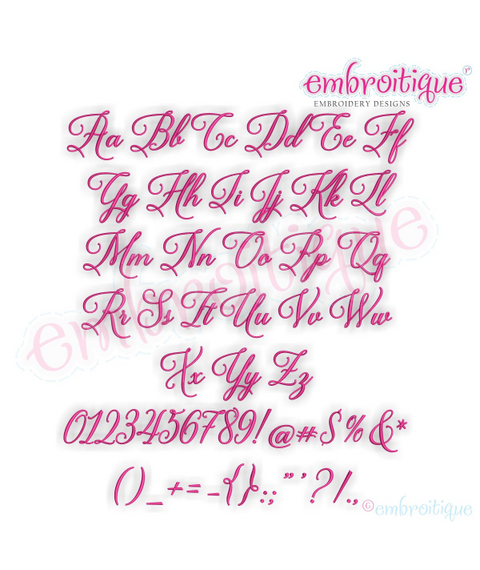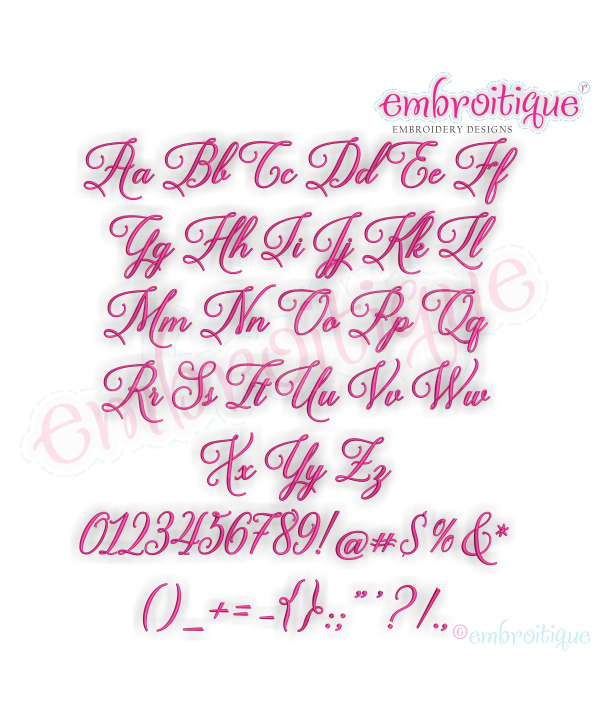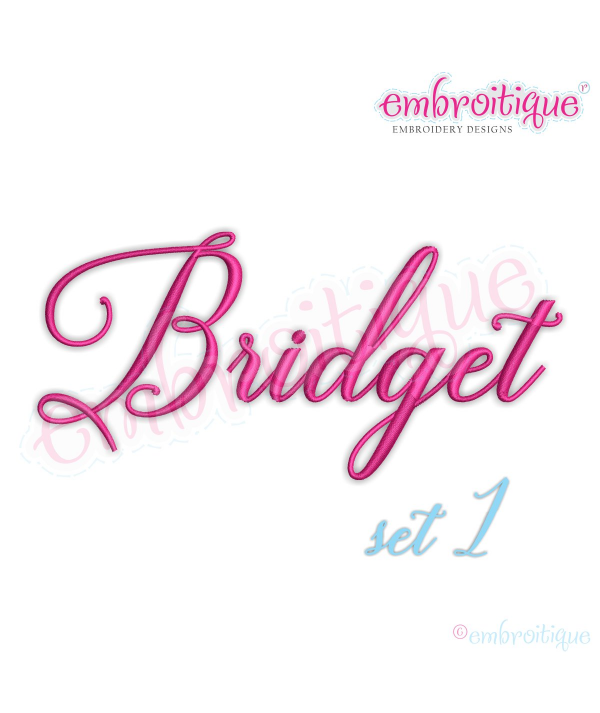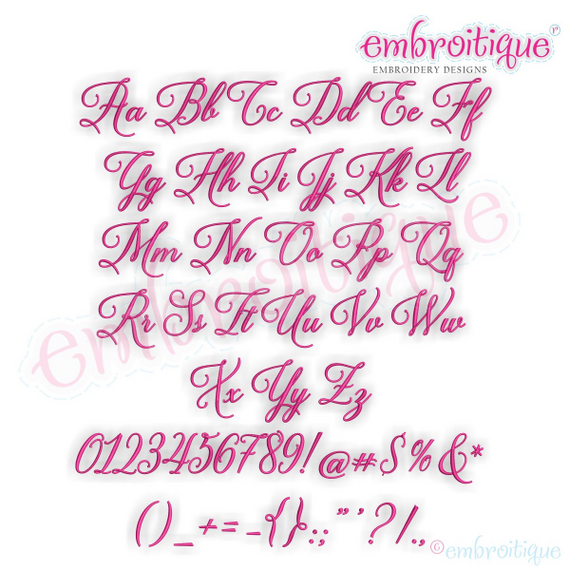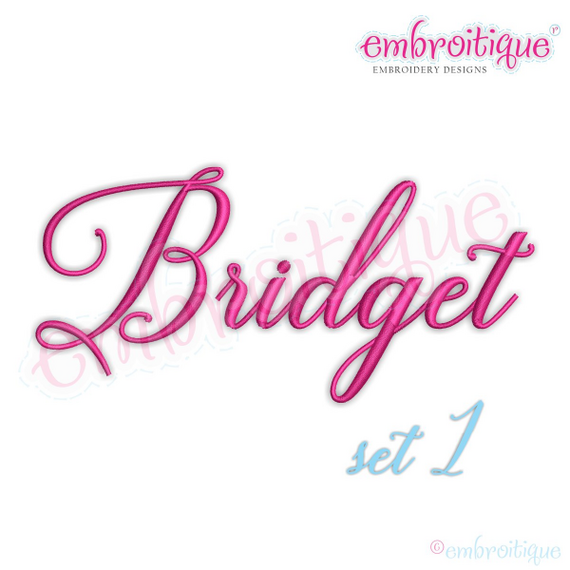
Bridget Monogram Set 1 - Small - Beautiful Calligraphy Swash Interchangeable Machine Embroidery Alphabet font - BX files included
This is the first set of three interchangeable monogram sets that can be used with each other to create beautiful names words and phrases. Click HERE to see our other Bridget sets. all sizes in the bridget sets are proportionate to the capital letter A in this set.
Aa-Zz Numbers and punctuation
Satin stitch